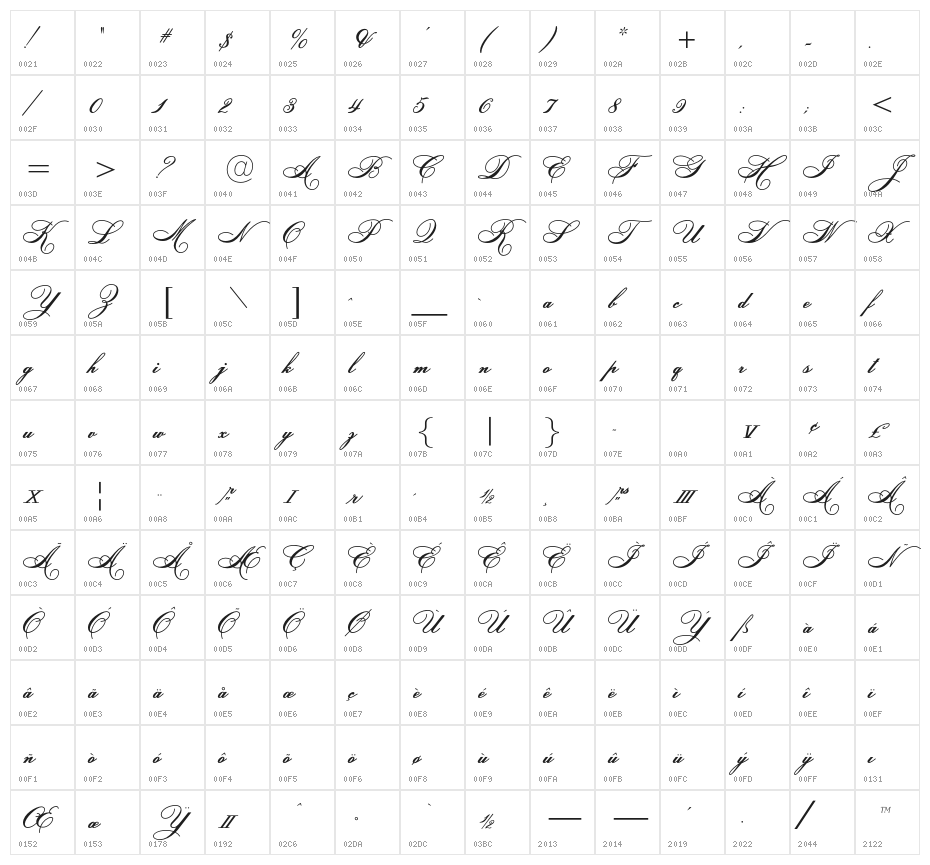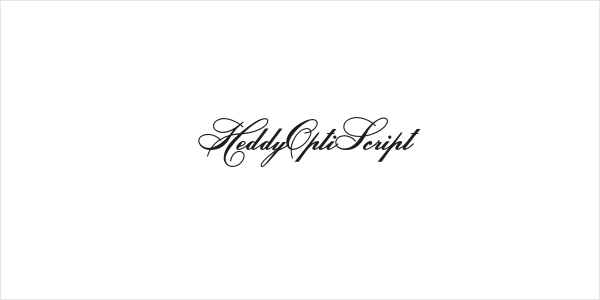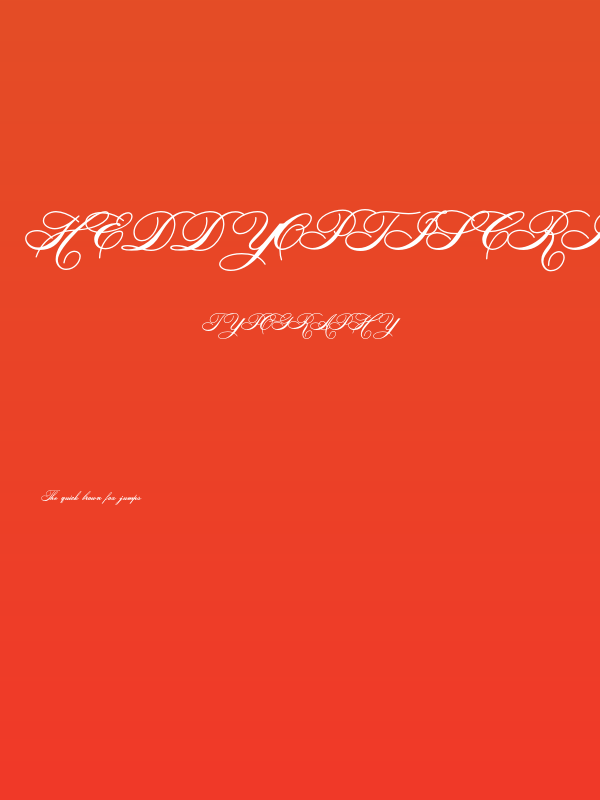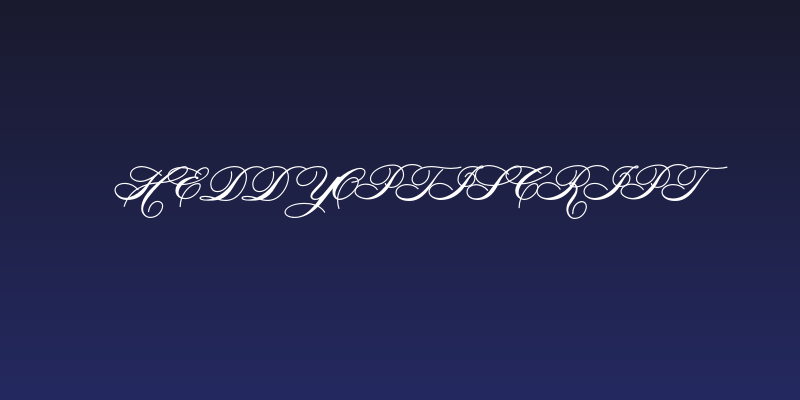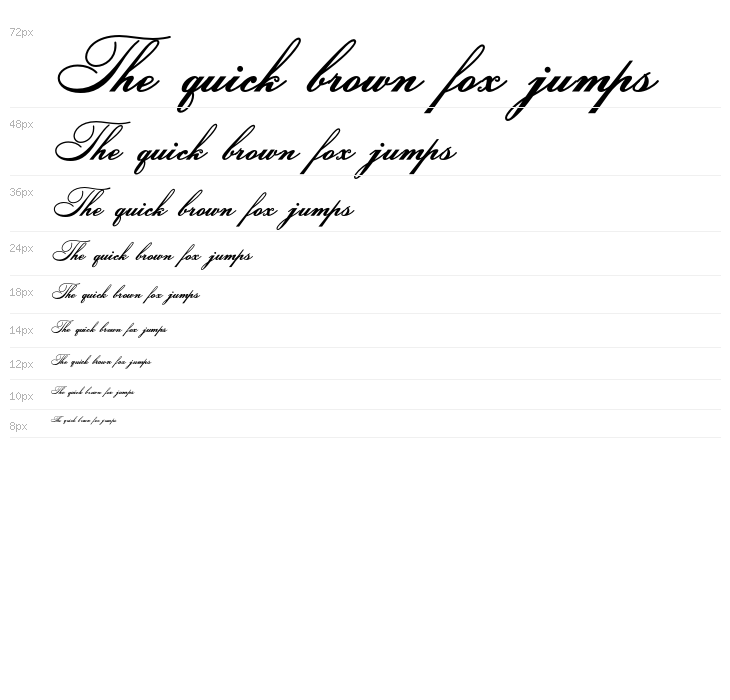
HeddyOptiScript Font
| Gesamtstil | Classic |
| Anwendungsfall | Logos, Invitations, Decorative text |
| Vorgeschlagene Projekte | Ideal for wedding invitations, formal event programs, luxury branding, and elegant stationery. |